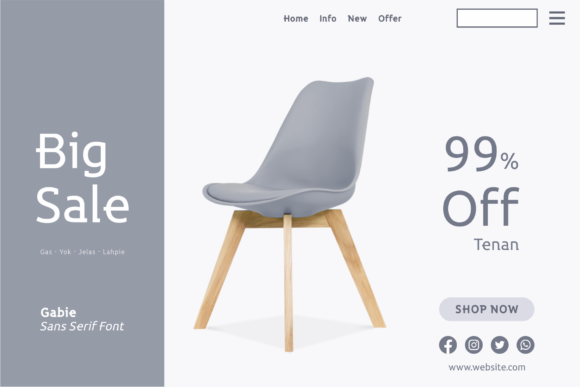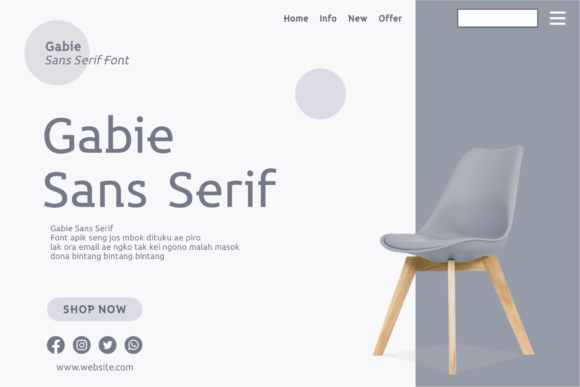
GABIE FONT SPECIMEN
Gabie is a modern, simple and adaptable slab serif font. It will elevate a wide range of crafting ideas, from cards, to branding, labels and much more.